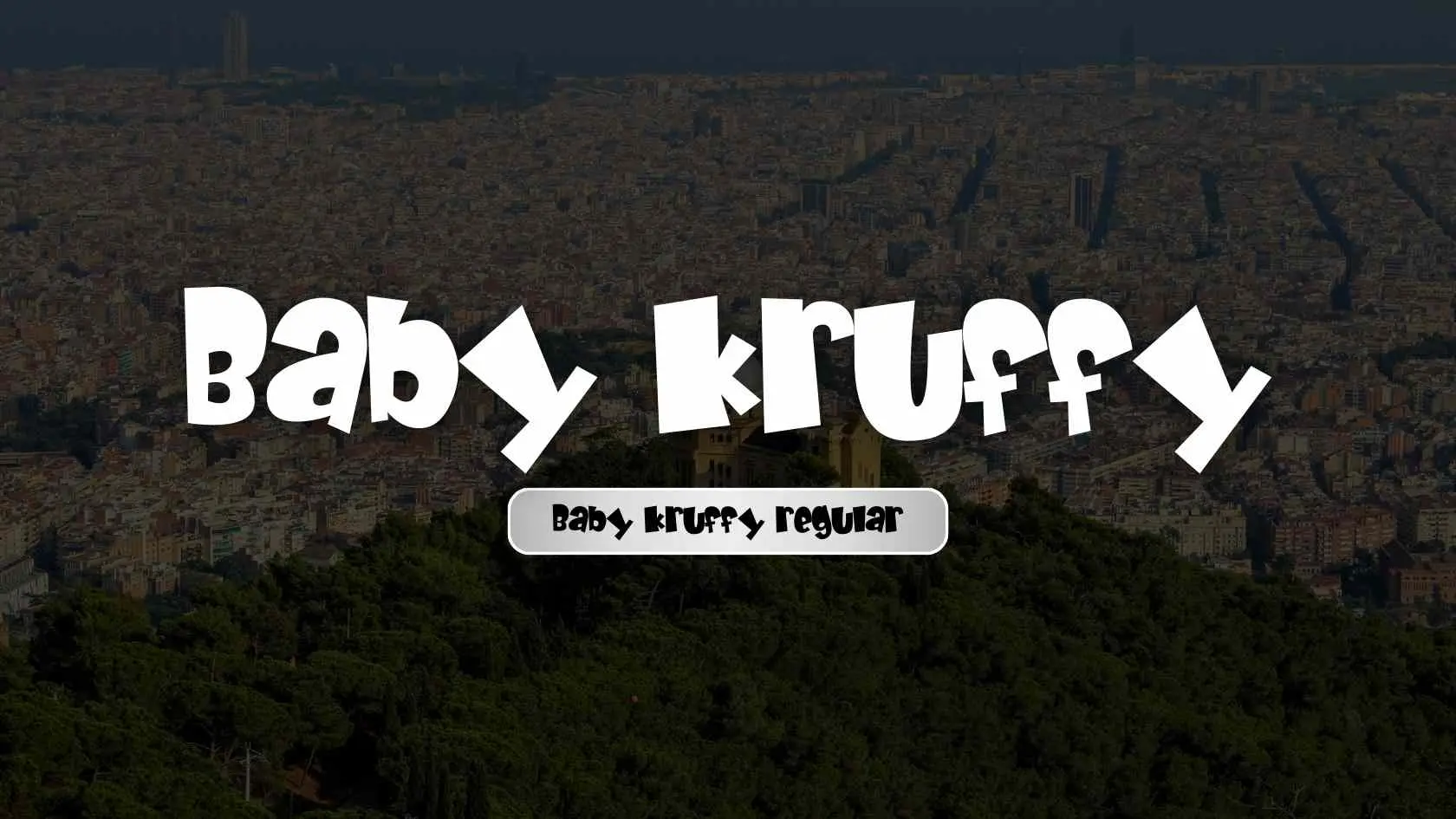
The font Baby Kruffy Regular, designed by Fontalicious, falls under the Display, Sans Serif category & Baby Kruffy font family. Its smooth, flowing letterforms make it a versatile choice for projects that require both elegance and readability. Baby Kruffy is particularly well-suited for Headlines and Titles, Children's Products, Craft and DIY Projects, Invitations and Party Supplies and Branding for casual businesses. With its balance of simplicity and decorative appeal, this font brings a polished touch to both personal and professional designs.